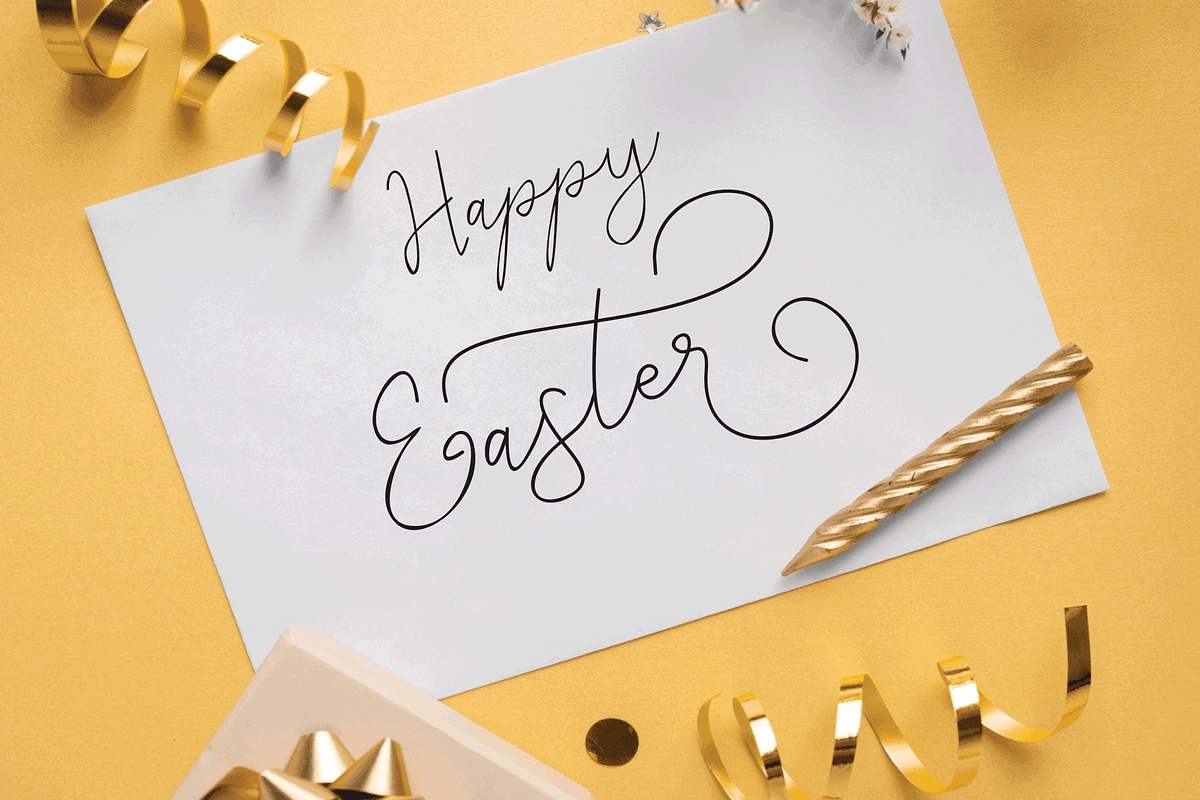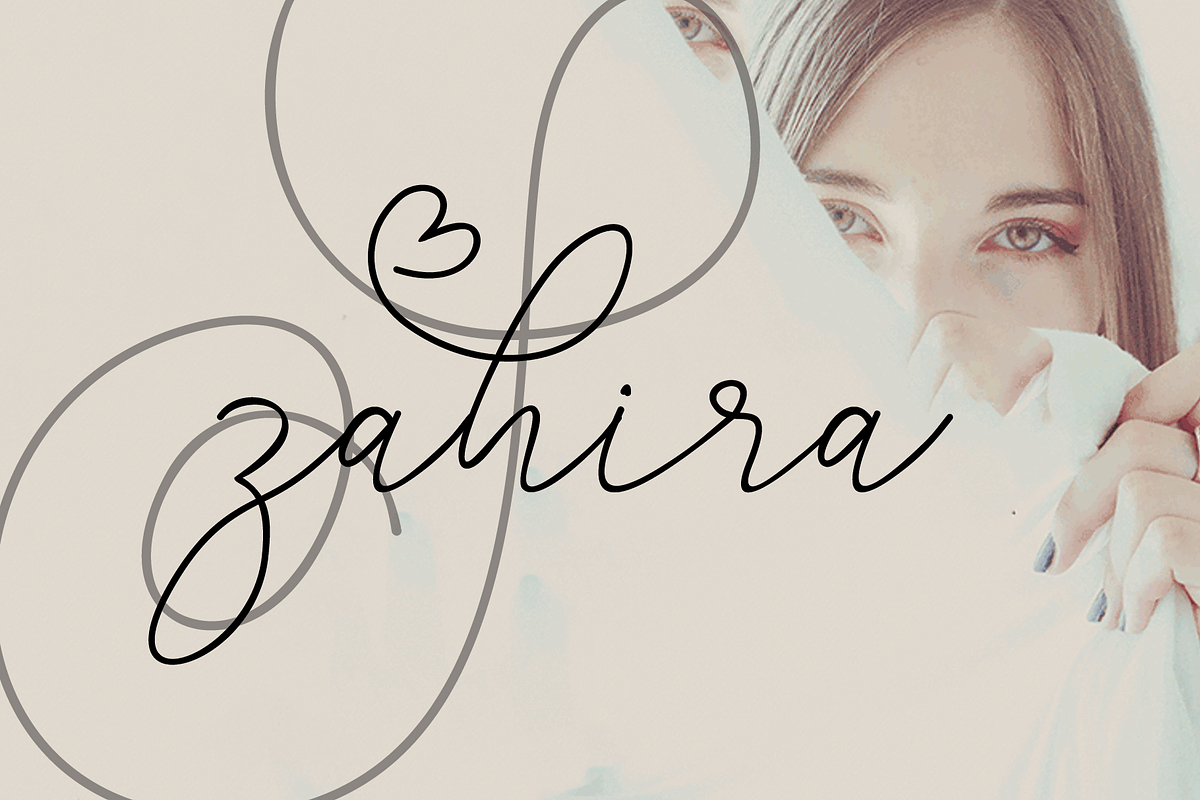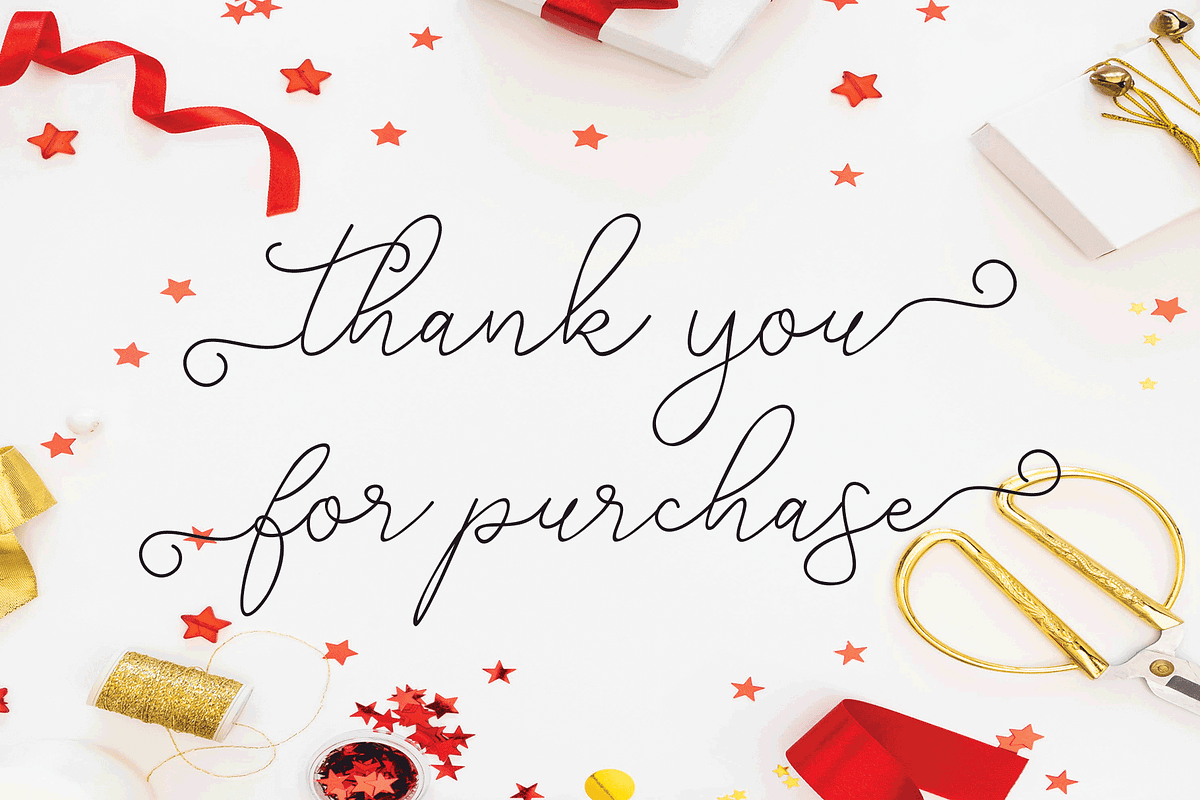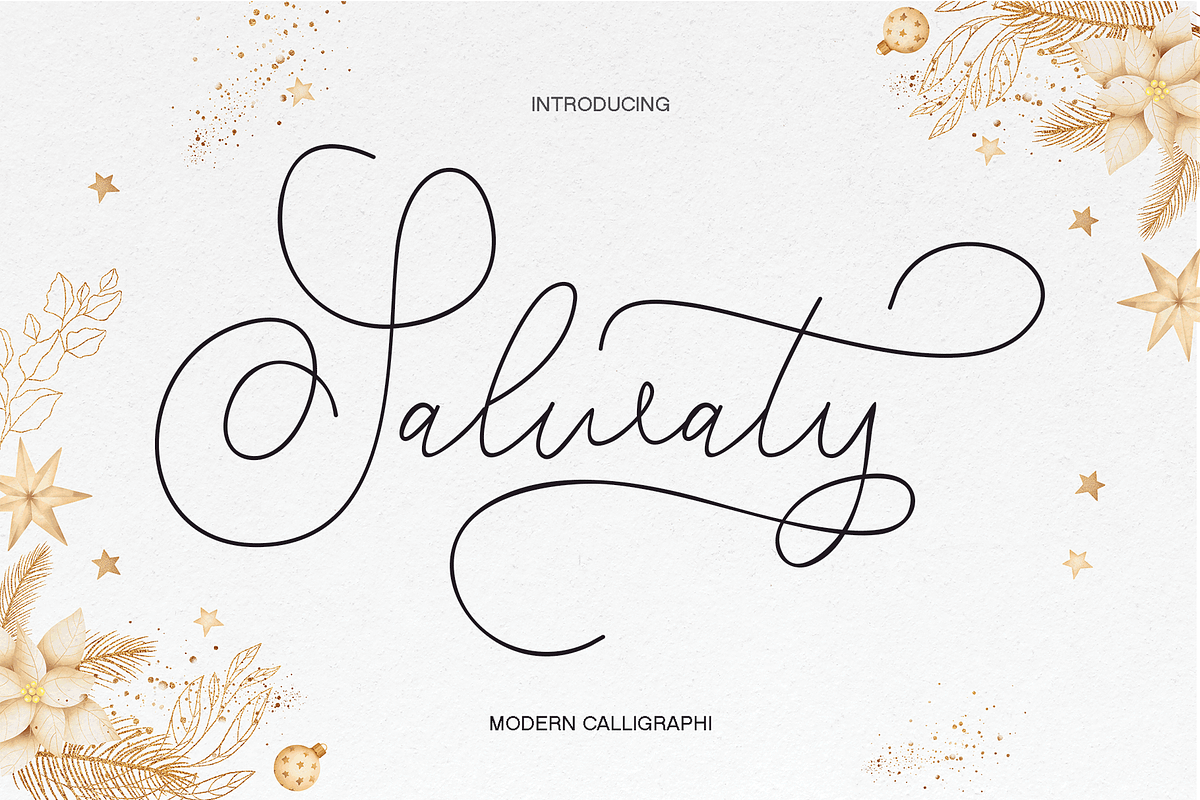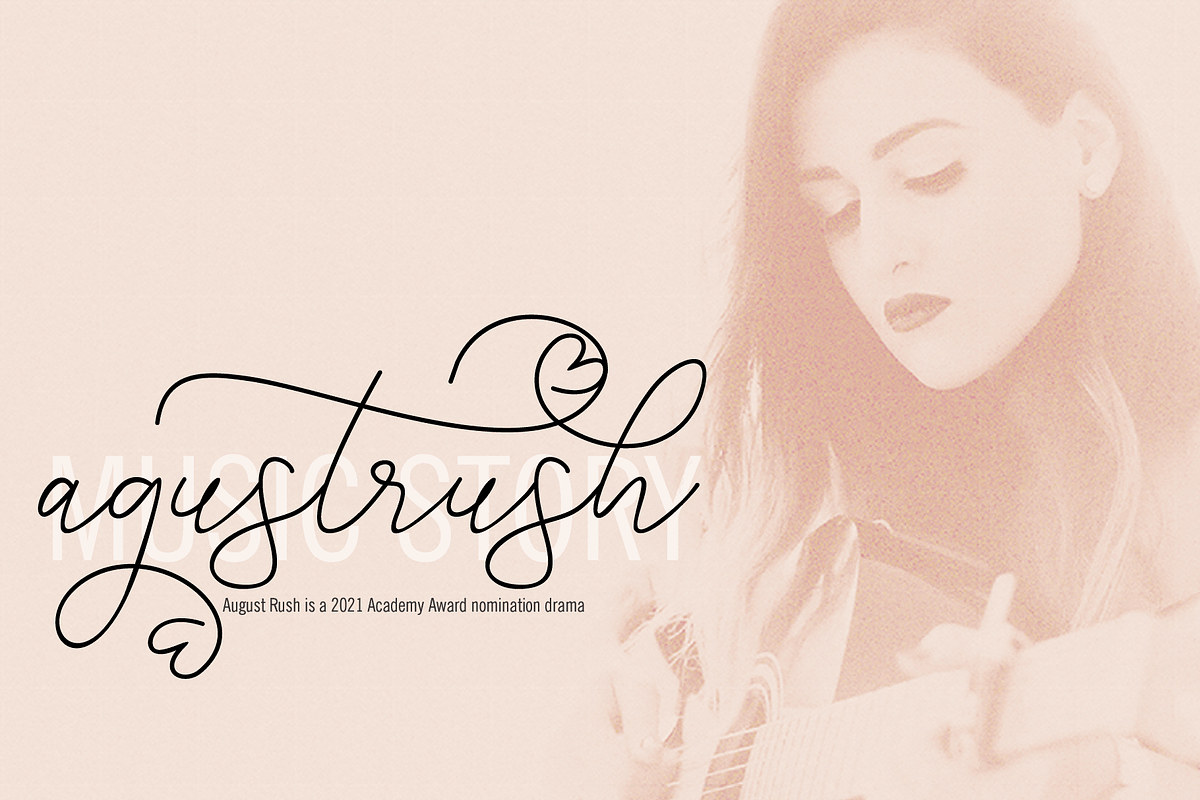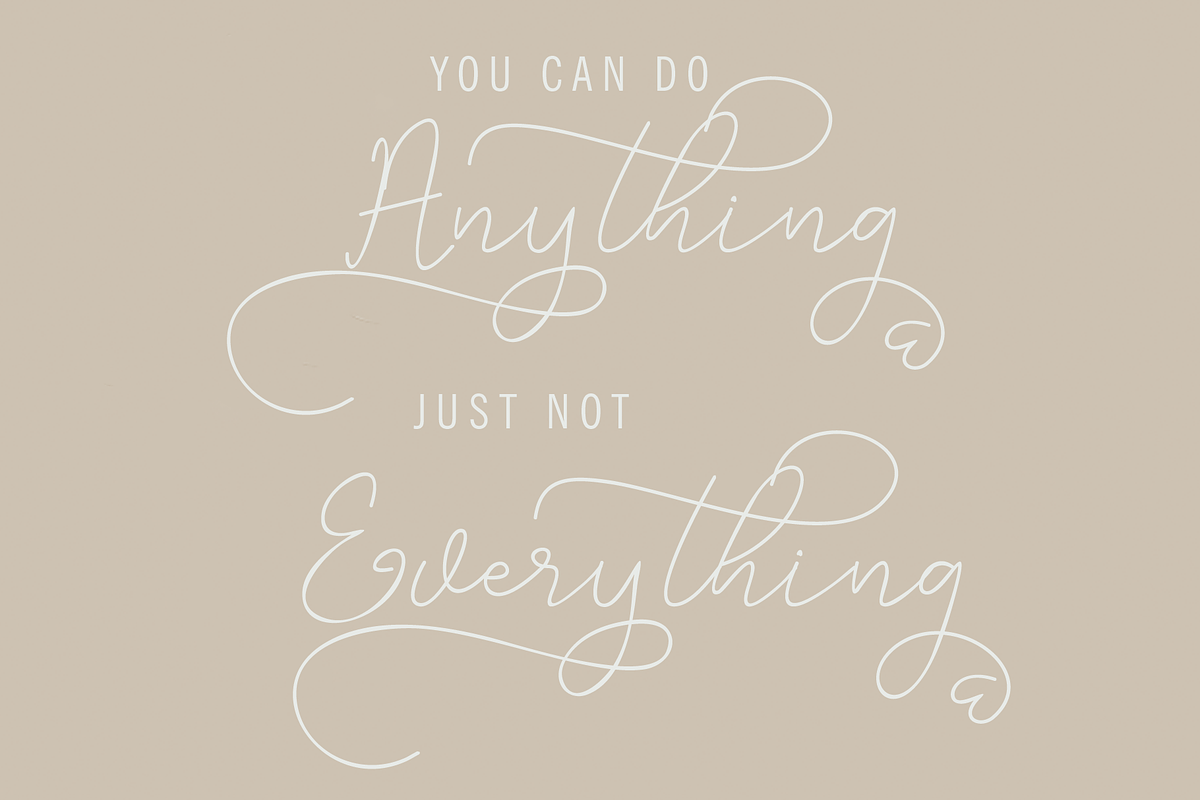
Salwaty
Salwaty, a work that is purely handwritten, has natural characteristics. It's perfect for invitations, signatures, blogs, social media, business cards, product brands.
Salwaty is a simple font that has Stylistic standards, Stylistic Alternatives. and includes uppercase and lowercase letters, numbers and punctuation.